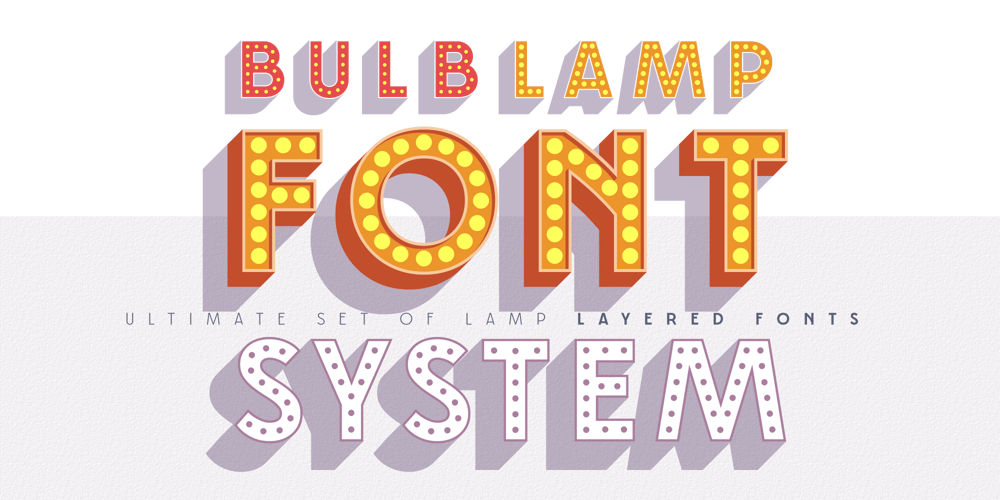
Bulblamp Font Family was designed by Alexey Popov and published by Popskraft. Bulblamp contains 12 styles and family package options. Layered font set 3D Bulb lampBulblamp is a 12 component font system that can be layered in different ways to create endless classic titling effects used commonly in signage by skilled sign painters and sign makers and any who interested in simple and flexible ways to make graphic design.Examples of how to use this you can see on the images. Moreover, You can start fast in Figma, Illustrator and Photoshop with predefined downloadable package.! Download free predesigned Figma, Illustrator and Photoshop sets for this fonts here: https://drive.google.com/open?id=17ogdSIjPuLA5-CUaAO1TlqJGbRPWy5iA&authuser=popov_av%40koriphey.ru&usp=drive_fsEach file is named according to its purpose. The number indicates the recommended order of the layers. 1 below, 5 on top. 1 means you should place it first. Of course, you do not have to use all the fonts, and vice versa – you can repeatedly use the same font style with different styles.What is Layered font?In fact, these are common fonts located in a stack strictly one above the other. This allows quickly create unique text effects using ordinary fonts.Where can you use this?These fonts can be used in any program that allows you to stack fonts as objects strictly one above the other, however it is recommended to work in professional programs such as Illustrator, Photoshop, Figma and so on …How to use this font set quickly?For quick use, I recommend using ready designs for Figma, Photoshop or Illustrator. Download fonts and Install all fonts. Go to the link https://drive.google.com/open?id=17ogdSIjPuLA5-CUaAO1TlqJGbRPWy5iA&authuser=popov_av%40koriphey.ru&usp=drive_fs which has contained pre-made solutions for this font applicable in Figma, Photoshop or Illustrator and download presets. Follow the recommendations on the pages. Basically, you will need to replace the words in the template with your own, then edit colors and transfer the result to your design. In that’s all, it’s easy.